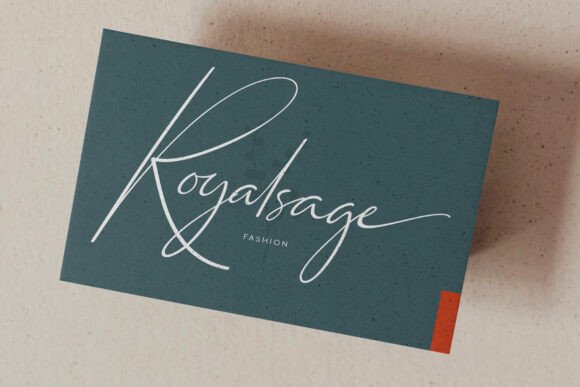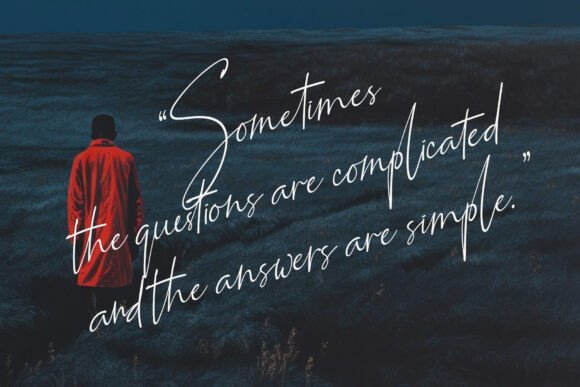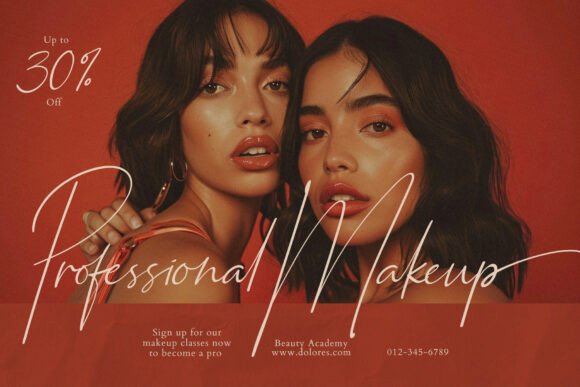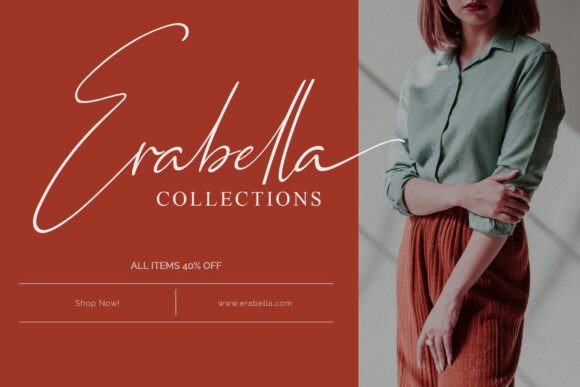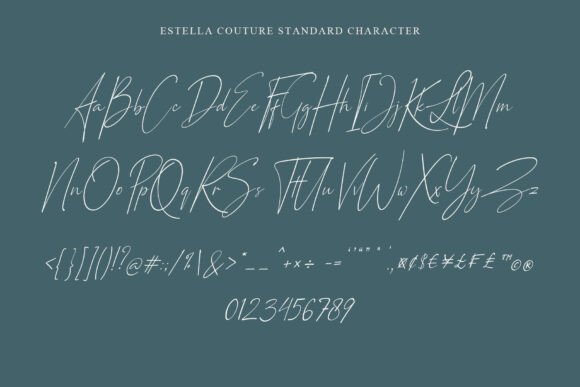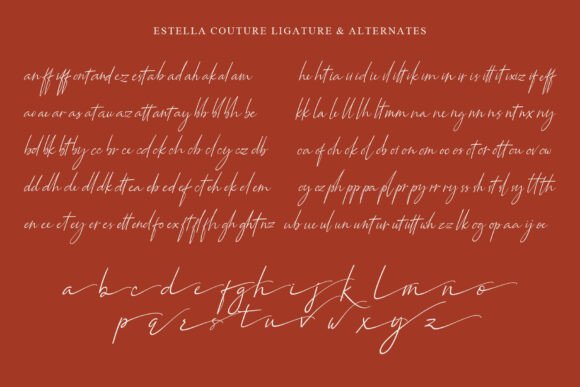
Introducing Estella Couture – Luxury Signature Font
Are you looking for a font that exudes luxury and sophistication? Do you want to add a touch of elegance to your designs, whether it’s for a logo, wedding invitation, or website? Look no further than Estella Couture, a beautiful calligraphy font that is sure to elevate your projects to the next level.
A Sophisticated Calligraphy Font
Estella Couture is a luxurious signature font that is designed to bring a sense of refinement and poise to your designs. With its flowing lines and delicate curves, this font is perfect for creating elegant logos, wedding invitations, and other sophisticated materials. Whether you’re a designer, crafty DIY enthusiast, or simply someone who appreciates beautiful typography, Estella Couture is sure to impress.
Key Features of Estella Couture
So, what sets Estella Couture apart from other fonts? Here are just a few of its key features:
- Stylish Ligatures: Estella Couture comes with a range of stylish ligatures that allow you to create unique and personalized text. These ligatures add a touch of elegance to your designs and help to set your work apart from the crowd.
- Delicate Swashes: The font also features delicate swashes at the beginning and end of lowercase letters, giving your designs a beautiful, handwritten touch. These swashes add a level of sophistication and refinement to your text, making it perfect for high-end designs.
- Versatility: Estella Couture is an incredibly versatile font that can be used for a wide range of projects. Whether you’re creating wedding stationery, branding materials, or website text, this font is sure to shine.
Perfect for Elegant Designs
Estella Couture is the perfect choice for designers and crafters who want to create elegant, sophisticated designs. Here are just a few examples of how you can use this beautiful font:
- Elegant Logos: Create a stunning logo for your business or brand with Estella Couture. This font is perfect for luxury brands, high-end boutiques, and other businesses that want to convey a sense of sophistication and refinement.
- Wedding Invitations: Make your wedding stationery truly special with Estella Couture. This font is perfect for creating beautiful wedding invitations, save-the-date cards, and other stationery materials.
- Photography Branding: Add a touch of elegance to your photography branding with Estella Couture. This font is perfect for creating beautiful business cards, website headers, and other branding materials.
- Modern Websites: Use Estella Couture to add a touch of sophistication to your website. This font is perfect for creating elegant headers, titles, and other text elements that will make your website stand out.
Why Choose Estella Couture?
So, why should you choose Estella Couture for your next design project? Here are just a few reasons:
- Unmatched Beauty: Estella Couture is a truly beautiful font that is sure to add a touch of elegance to your designs. Its flowing lines and delicate curves make it perfect for creating sophisticated materials.
- Refinement and Poise: This font exudes refinement and poise, making it perfect for high-end designs. Whether you’re creating luxury branding materials or elegant wedding stationery, Estella Couture is sure to impress.
- Easy to Use: Estella Couture is incredibly easy to use, even for designers who are new to calligraphy fonts. With its simple and intuitive design, you can quickly and easily create beautiful text elements.
In conclusion, Estella Couture is a luxurious signature font that is perfect for designers and crafters who want to create elegant, sophisticated designs. With its stylish ligatures, delicate swashes, and versatile design, this font is sure to add a touch of refinement and poise to your projects. Whether you’re creating elegant logos, wedding invitations, photography branding, or modern websites, Estella Couture is the perfect choice.